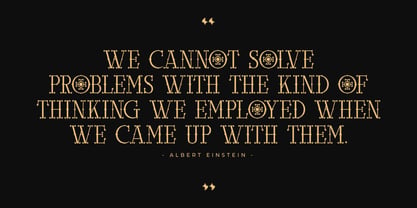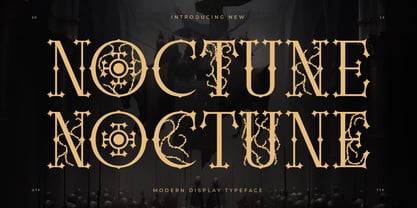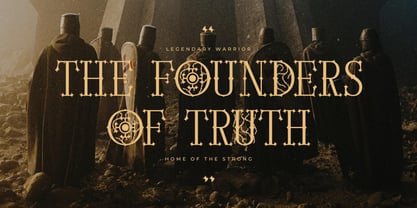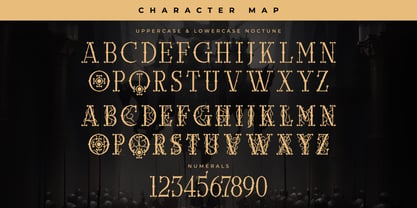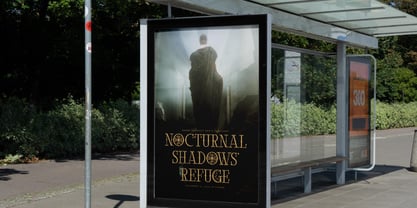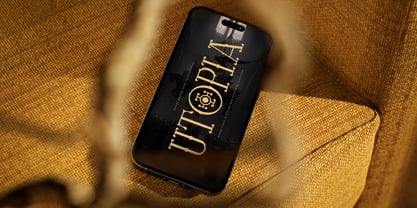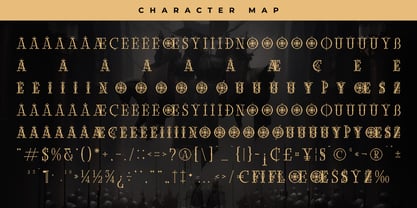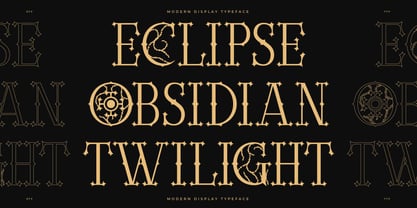
Noctune
The Noctune Font Family was designed by Heru Utama Putra and published by Letterena Studios. Noctune contains 1 styles. More about this family
Noctune - Modern Display Font , from Letterena, is a Luxury Serif font, suitable for any projects such as: logos, branding projects, homeware designs, product packaging, mugs, quotes, posters, shopping bags, t-shirts, book covers, name card, invitation cards, greeting cards, label, photography, watermark, special events, and all your other luxury and beautiful projects that need a Luxury Serif taste.